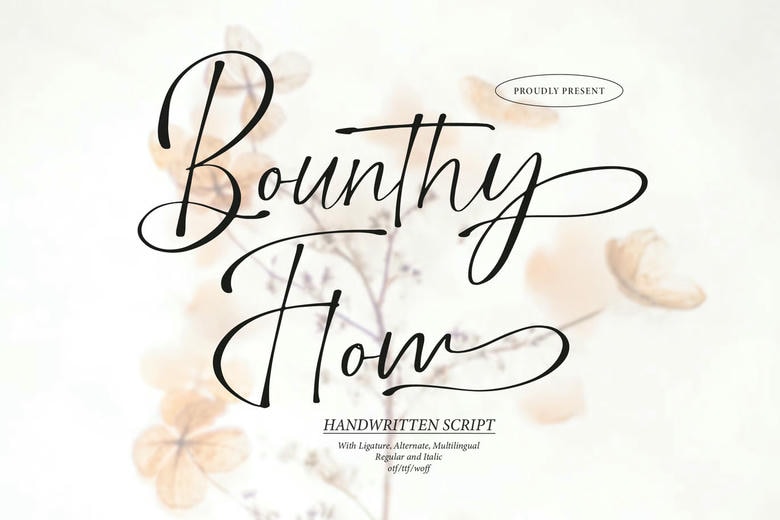
Bounty Flow Font
Bounty Flow Handwritten Font has a bold yet flexible style that is easy to read. Every detail is carefully crafted to make the font clear, consistent, and appealing for a variety of design projects.
The letters are balanced, and the font offers alternate characters and ligatures for more creative choices. This makes the font lively, unique, and professional, so it works with many design styles.
Bounty Flow Handwritten Script Font